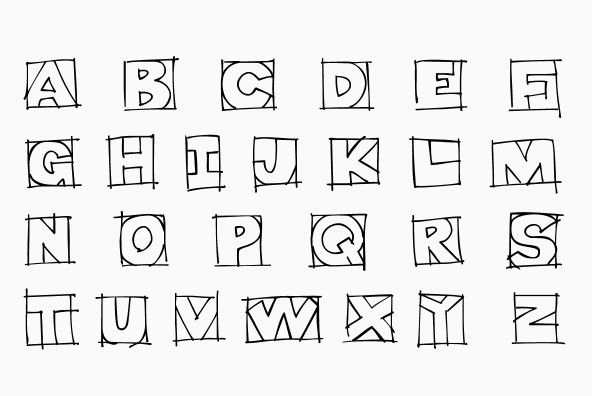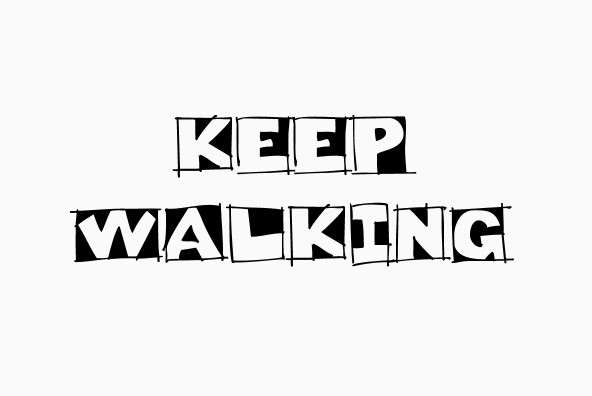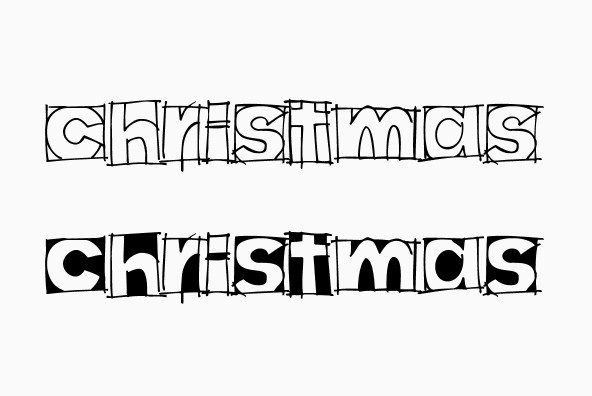
Doodles the Alphabet Line and Black were designed to work with all the Doodles picture fonts. These two fonts were designed specifically to compliment all the Doodles picture fonts.